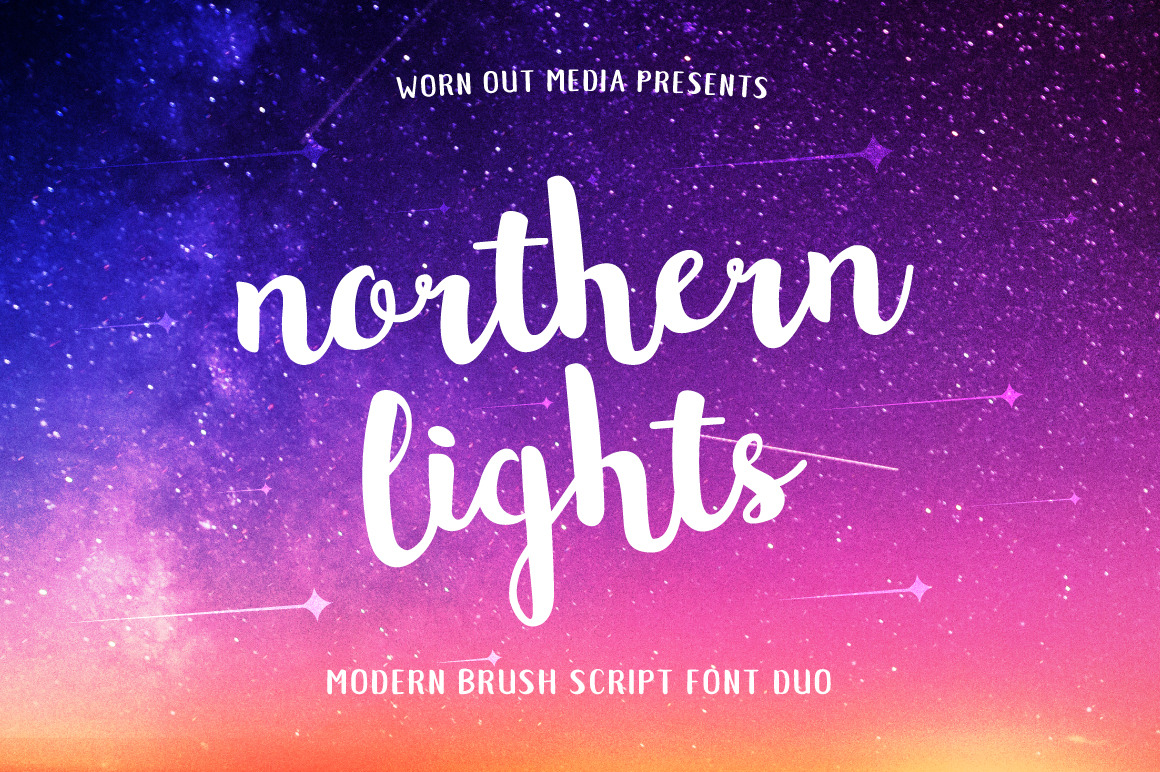
Northern Lights Brush Script Font
Create amazing and inspiring Instagram quotes, Facebook posters, modern logos, greeting cards and prints with this Scandinavian inspired handmade brush font.
Few weeks ago I decided to take a leap and create my first font! I walked to a nearby crafts store in my hometown and bought a bunch handwriting pencils. After practicing a while I came up with a brush script style that seemed perfect enough to start turning it into a digital font. I tweaked it in Illustrator and then put it through Glyphs App to space and kern it perfectly. I also added caps version to this font to be used with the script. I hope you like it :)
Lowercase & Uppercase The script version comes as lowercase and uppercase that are perfectly imperfectly connected together.
Multilingual Support Supports most European characters. See the last preview image, or use the font preview to see if has the characters you need.
Extra Caps Font All caps version comes with the pack. Also multilingual.